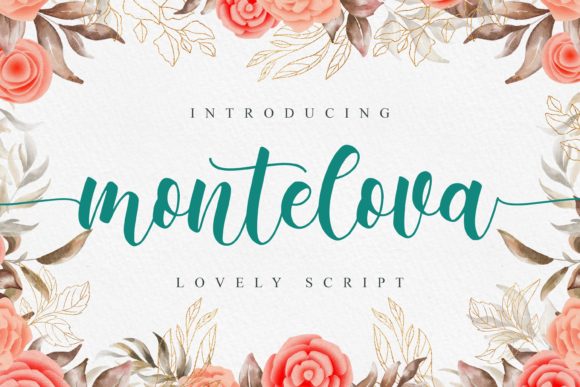
Let your imagination soar with Montelova, an enticingly elegant and soft handwritten font from the creative minds at almarkhatype. Experience the allure of this font in all its glory as it transforms your creations into captivating masterpieces. Let your words dance across the digital canvas, leaving a trail of grace and captivating charm.
Your words will radiate a timeless charm as Montelova weaves its magic upon them. Each letter flows seamlessly into the next, mimicking the effortless dance of a skilled calligrapher's pen. With Montelova, your creations will exude sophistication, capturing the essence of timeless elegance. Picture your designs adorned with this exquisite font, turning heads and captivating hearts.
Unleash your creativity with Montelova, the font that knows no bounds. Its versatility will ignite your imagination, empowering you to create designs that transcend the ordinary. Let Montelova guide you as you craft stunning wedding invitations, elegant stationery, and social media posts that will make your brand shine brighter than ever before.
With Montelova, every word you write becomes a work of art. Its fluidity invites you to create designs that evoke a sense of wonder and whimsy. Montelova is the perfect choice for those seeking to make a profound and unforgettable impression.
Step into the realm of typographic enchantment with Montelova. Allow its captivating charm to elevate your creations to new heights. With every stroke of the keyboard, you'll feel the magic of Montelova as it transforms your words into breathtaking works of art. Let your imagination soar and embrace the beauty of handwritten elegance with Montelova.